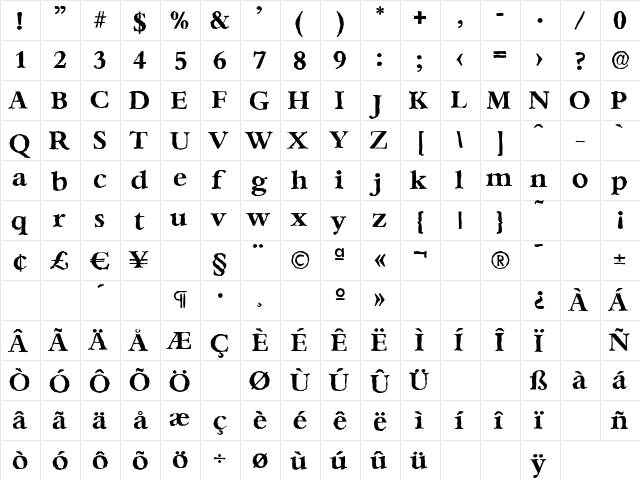
BernsteinAntique Bold Font Preview
BernsteinAntique Bold
BernsteinAntique Bold Font Details
Design Context for BernsteinAntique Typeface
BernsteinAntique wears its vintage influences proudly, with letterforms that recall mid-century signage, classic packaging, and nostalgia-driven design. Its bold stroke weight gives it real presence on the page.
Perfect for vintage-inspired branding, retro packaging, nostalgia campaigns, and period-accurate editorial design.
Font Pairing: Combine BernsteinAntique with a simple slab or neutral sans — period-accurate companions reinforce the vintage feel without competing for attention.
Pro Tip: Use BernsteinAntique for headlines and pull quotes rather than body copy — its personality is best appreciated in short, focused bursts.